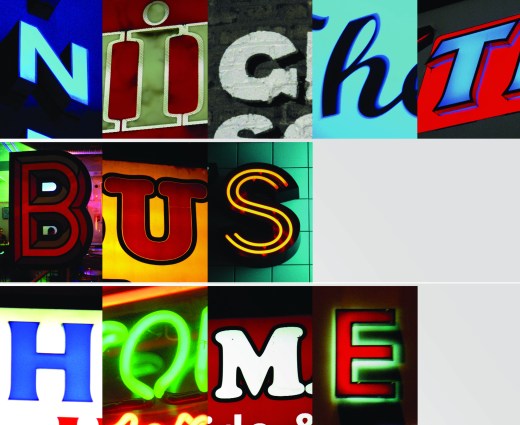
‘Eclectic’ by Sarah Hyndman
Photos taken by Type Tasting organiser Sarah Hyndman on a Type Safari through Dalston.
Type Safaris have proved popular and reinforce the ‘typography is all around us’ message. You are taken on a tour of an area of London, for example Dalston, and show you how the history of the area is revealed through the signage, explaining the origins of the different typefaces and discussing why they are (or aren’t) appropriate for each sign.
Graphic designer Hyndman set up Type Tasting in February 2013, launching with a Valentine’s evening of ‘Swearing ‘n’ Cussing’. Type Tastings combine hands-on creativity with learning about typography as we experience it in our everyday lives—through pop culture not reference books. We take participants away from their computers to get messy and experiment, to make letters out of marks, turn sounds into words, or on a Type Safari to explore signage. Type Tastings are not just for designers. Whilst they provide typography training and creativity sessions for experienced designers, they also offer creative thinking for professional development, and are an introduction to typography for non designers and those interested in learning more.
‘Eclectic’ by Sarah Hyndman is one of the words that will be displayed at Type Tasting with the London Design Festival 2013 at the V&A.